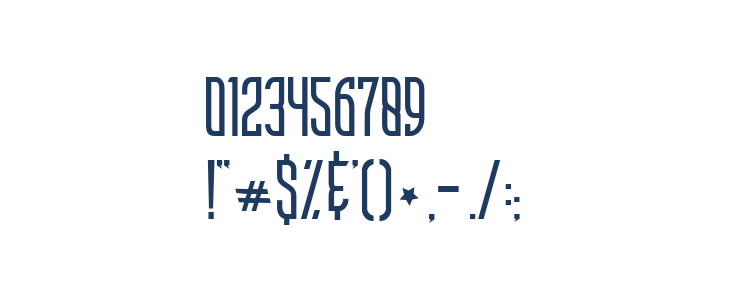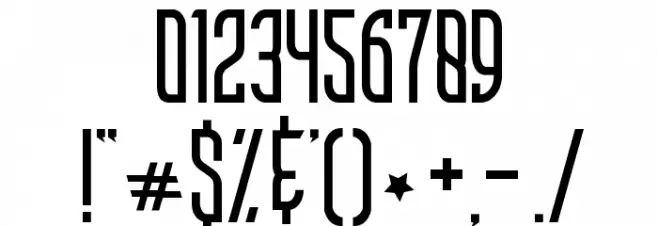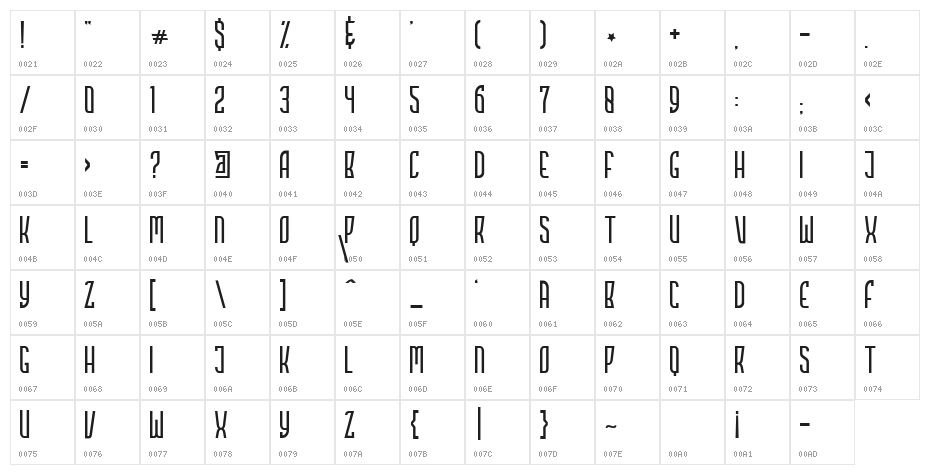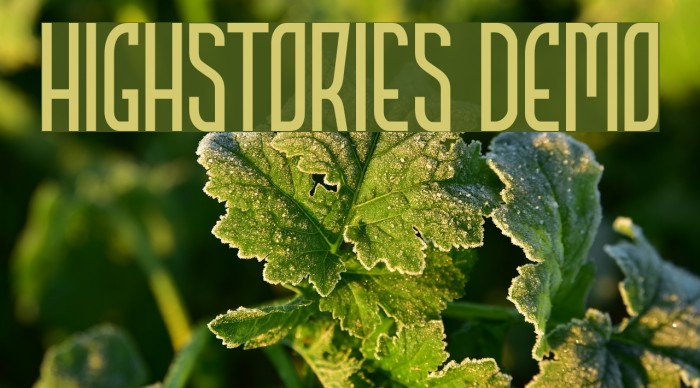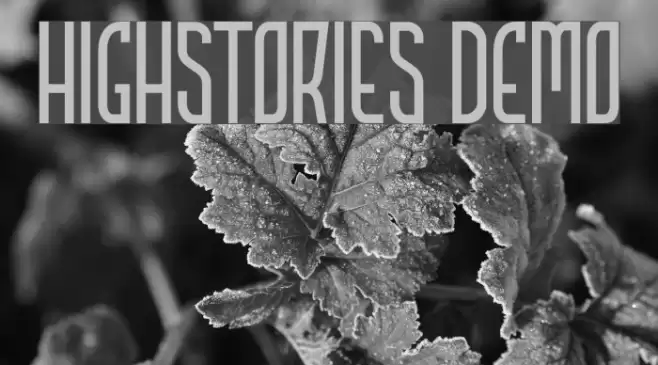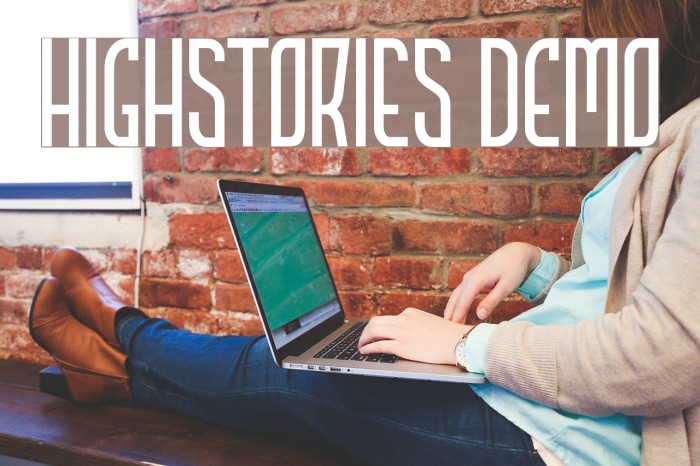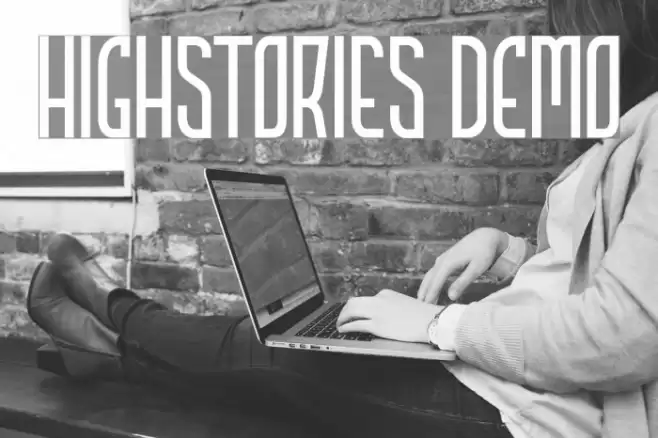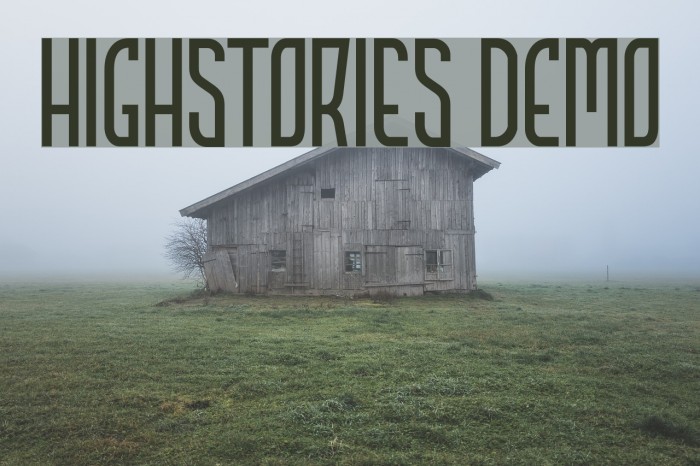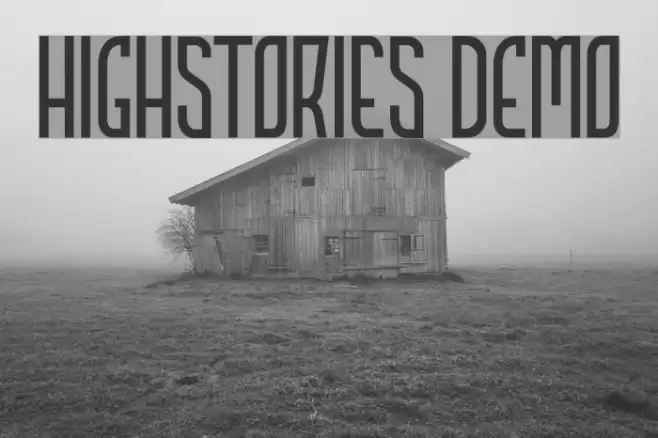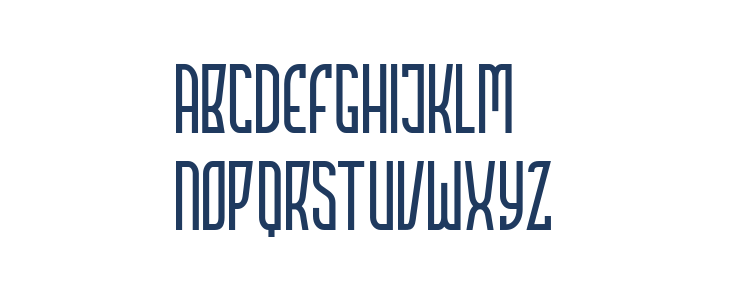
HIGHSTORIES Demo Font
HIGHSTORIES Demo Description
This font features a tall, narrow design with a modern and geometric aesthetic. The characters are elongated and have a consistent stroke width, giving them a sleek and streamlined appearance. The uppercase and lowercase letters maintain a uniform height, contributing to a cohesive look. The numerals and special characters follow the same design principles, ensuring visual harmony across all glyphs. The font's clean lines and minimalistic style make it suitable for contemporary design projects where a bold yet refined look is desired.
| Proposed Projects | Ideal for branding, posters, headlines, and modern web design. |